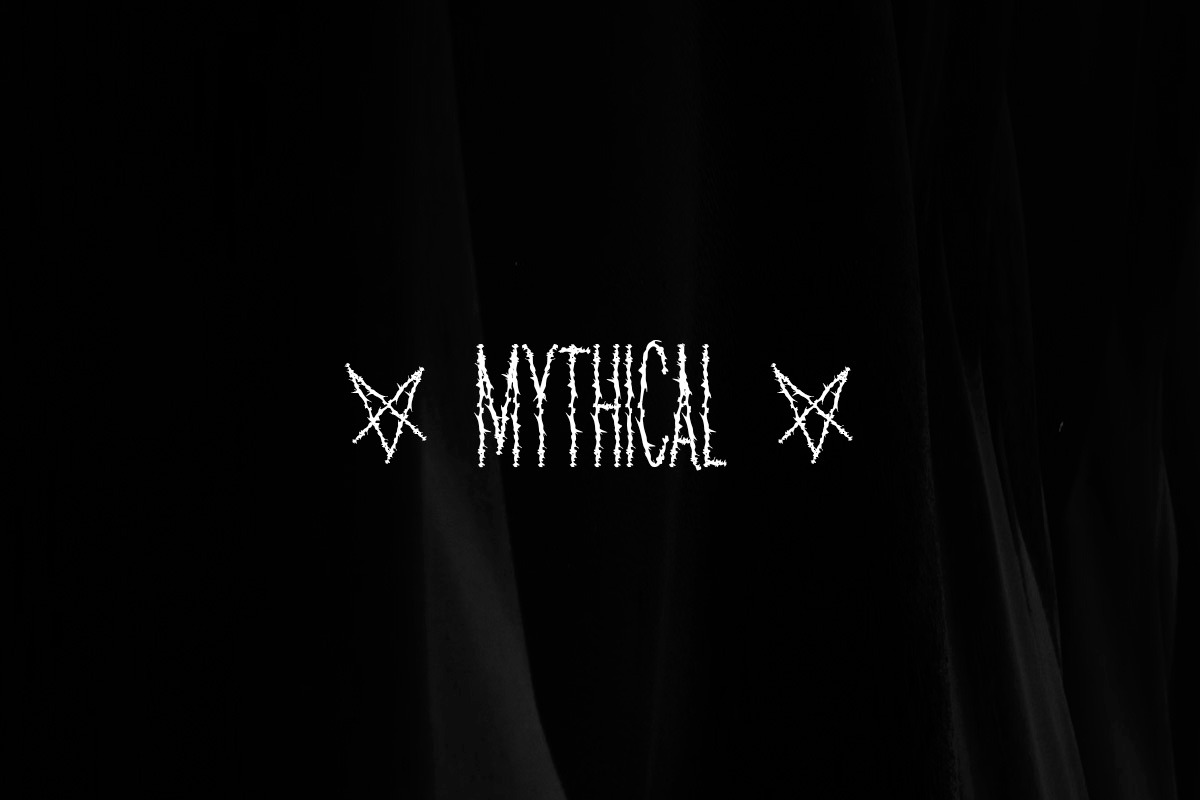
MATAN | BLACK METAL FONT
ello everyone ...... this is a WATAN made with a square line and an exact curve between one and the other, this font is perfect for branding, headings, signatures, logos, blogs, t-shirts, merchandise, signage, labels, news, posters, badges, etc, also includes multilingual, numbers, alternatives, punctuation.